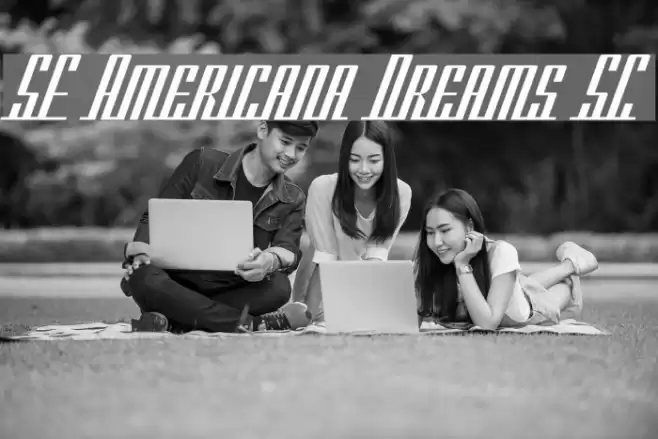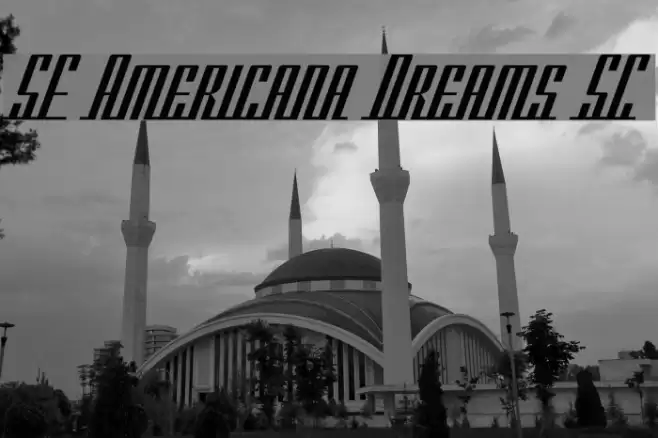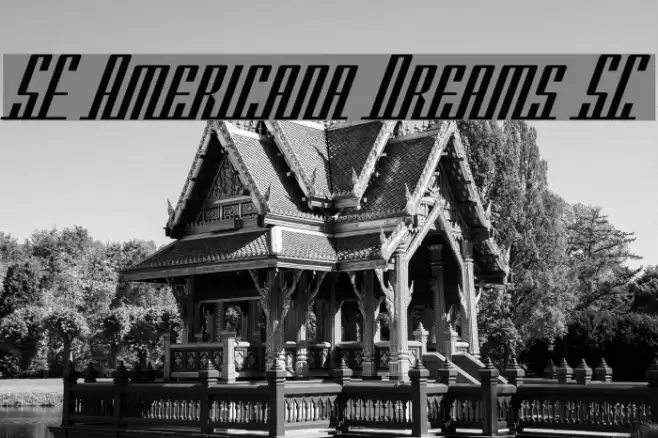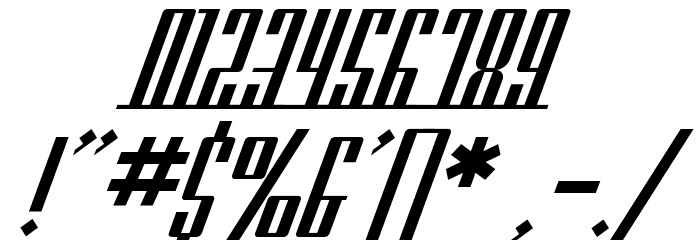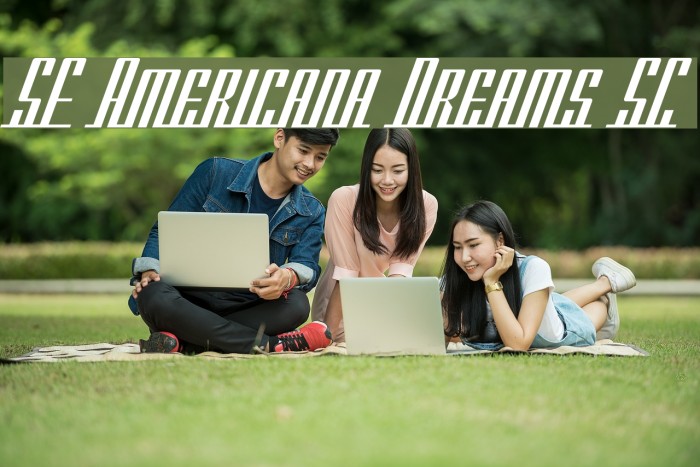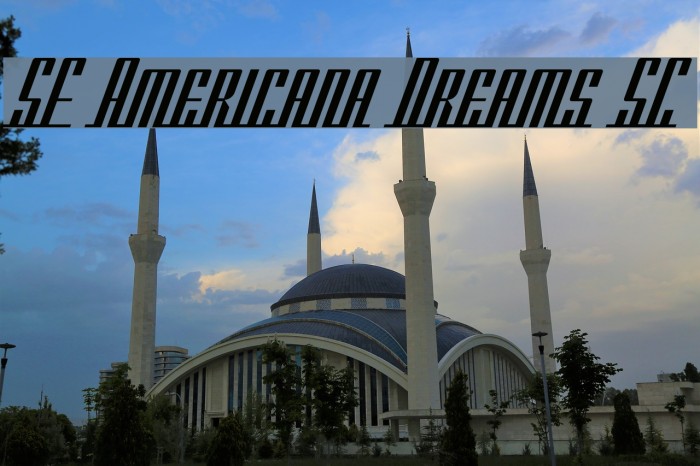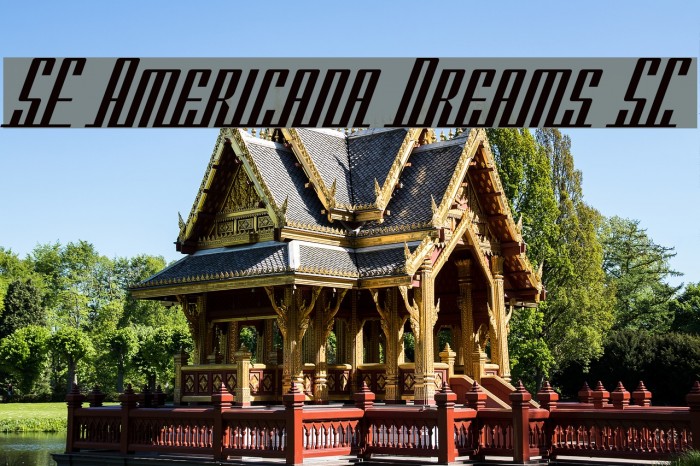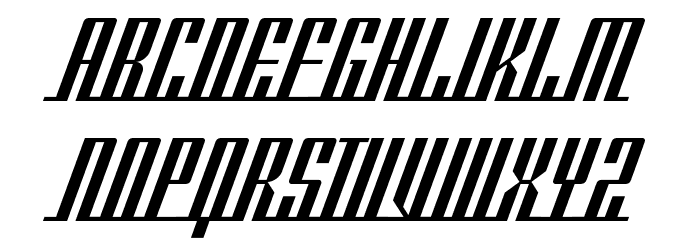
SF Americana Dreams SC Font
SF Americana Dreams SC Description
This font features a bold and dynamic design with a strong slant, giving it a sense of motion and energy. The characters are elongated and condensed, creating a sleek and modern appearance. The sharp angles and clean lines contribute to a futuristic and edgy style, making it stand out in any design. The uppercase and lowercase letters maintain a consistent style, while the numerals and special characters complement the overall aesthetic. This font is ideal for projects that require a bold statement and a contemporary look.
A bold, slanted font with a sleek, modern design from Retro fonts.
- Proposed Projects: Ideal for branding, sports team logos, posters, and dynamic advertisements.
- Character Spacing: Tight
- Use Case: Logos, Headlines